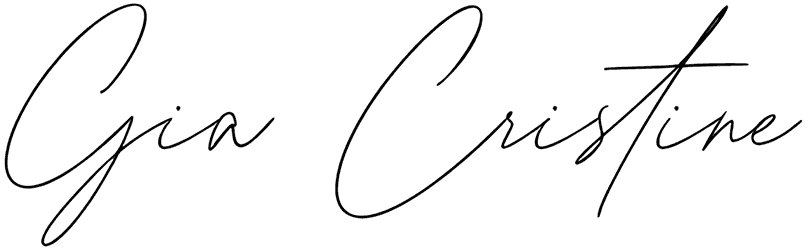
Gia Cristine Font
Gia Cristine is a signature font that can convey the credibility of a brand and thus create an emotional connection between you and the customer.
This font is a quick and easy way to send your message, without numbers, and all design elements are carefully selected. The charm and masculine power of this handwriting font make it look very good in branding, party invitations, or any other personal design.